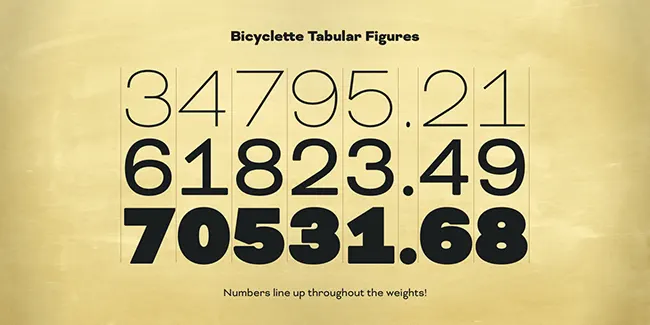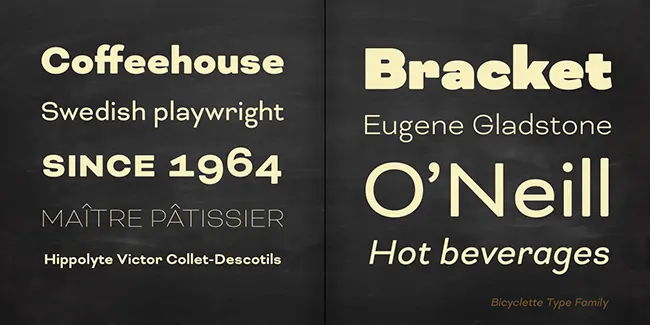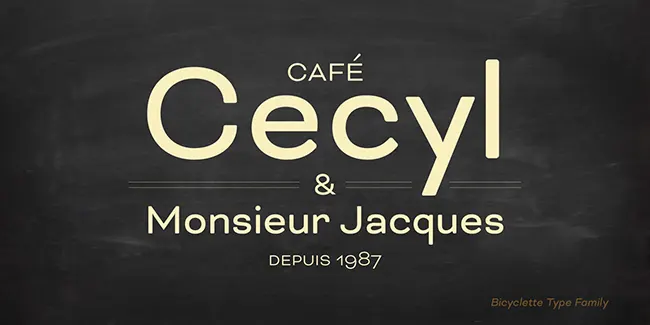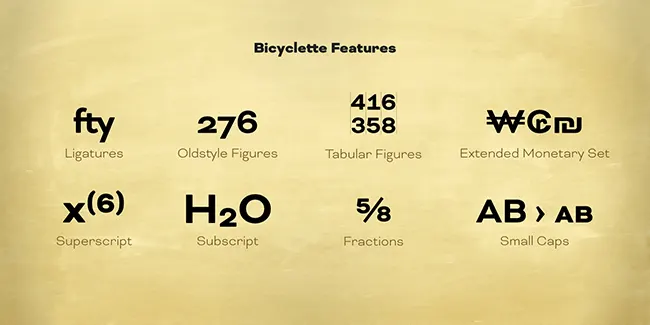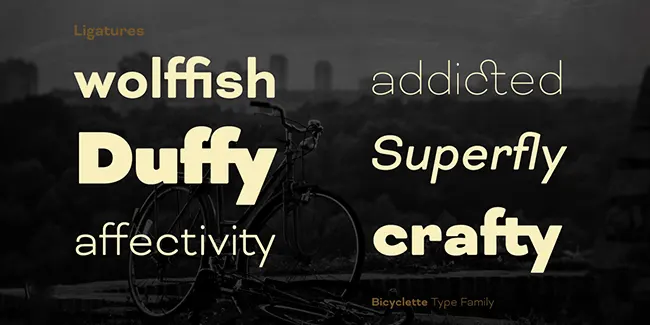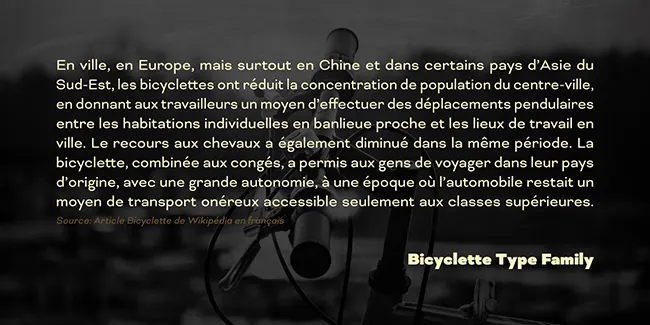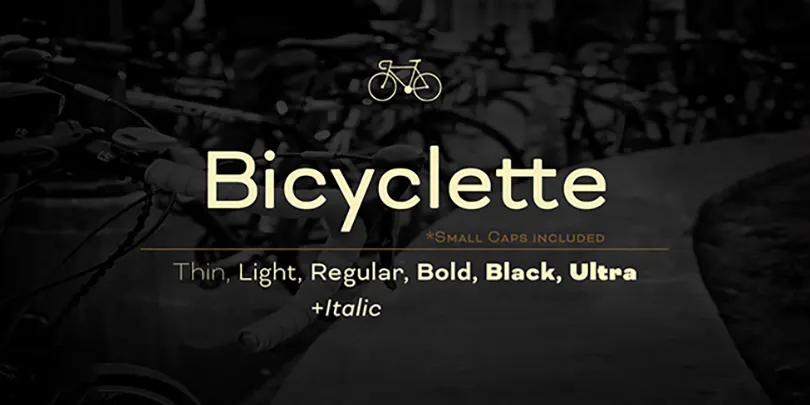
Bicyclette is a modern type face having thin, light, regular, bold, black, ultra and italic in its family. Bicyclette font family can be used in logo design, brochures, web pages & other graphic designs as title headings and content. Other features of Bicycletter font family include ligatures, subscript, superscript, small caps & extended monetary set.